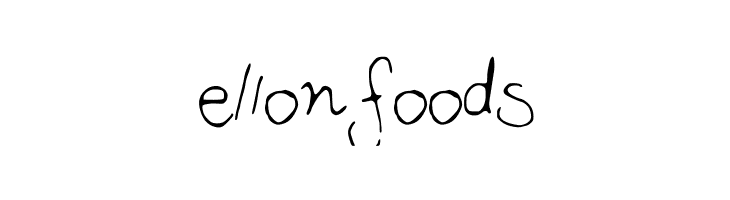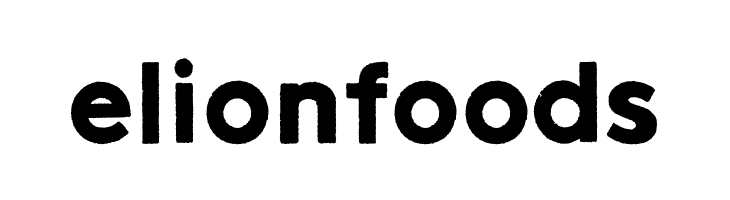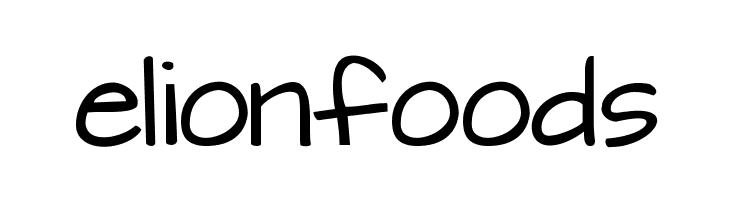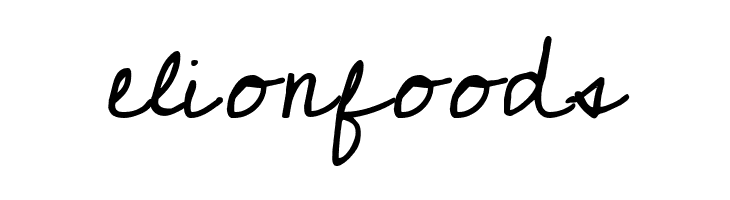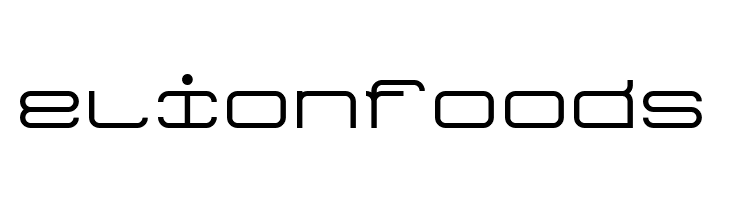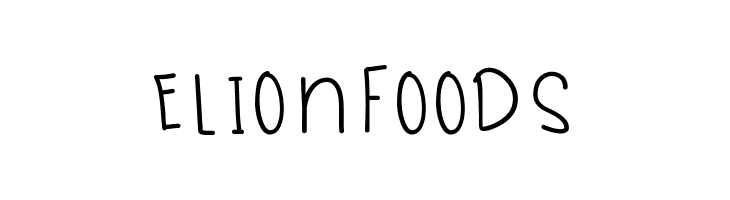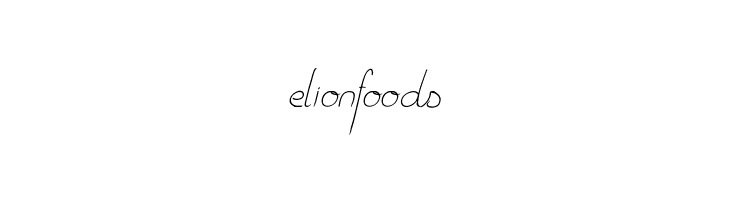
( Fonts by Kimberly Geswein - kimberlygeswein.com )
A bold, playful handwritten font with rounded, energetic letterforms.
( Fonts by www.kimberlygeswein.com - Kimberly Geswein )
A playful, handwritten-style italic font with smooth, rounded strokes.
A playful, handwritten font with bold, irregular strokes and a casual style.
( Fonts by www.hindson.com.au )
A specialized font for harp pedal notation with clear, structured symbols.
A bold, impactful font with thick, uniform strokes for strong visual presence.
A bold, decorative font with intricate, layered designs and a modern flair.
A playful handwritten font with a casual and friendly vibe.
( Fonts by Büro Sequenz )
A bold, blocky typeface with strong, uniform characters ideal for impactful designs.
( Fonts by www.kimberlygeswein.com - Kimberly Geswein )
A playful, handwritten font with a youthful and whimsical style.
( Fonts by www.kimberlygeswein.com - Kimberly Geswein )
A lively, handwritten cursive font with fluid, energetic strokes.
( Fonts by www.kimberlygeswein.com - Kimberly Geswein )
A playful, handwritten font with smooth, rounded edges and a casual style.
( Fonts by www.kimberlygeswein.com - Kimberly Geswein )
A playful cursive font with fluid strokes and a whimsical, handwritten style.
( Fonts by www.kimberlygeswein.com - Kimberly Geswein )
A casual, handwritten font with a friendly and approachable style.
( Fonts by www.kimberlygeswein.com - Kimberly Geswein )
A whimsical and curly font with playful swirls and embellishments.
A futuristic, geometric font with rounded edges and consistent line weight.
A playful, handwritten font with a whimsical and casual style.
( Fonts by Matěj Hofman )
A bold, geometric font with a futuristic and edgy style.
( Fonts by Maelle.K - Thomas Boucherie )
A bold, decorative font with intricate, swirling designs and tight character spacing.
( Fonts by Maelle.K - Thomas Boucherie )
An ornate script font with elaborate swirls and flourishes, perfect for elegant designs.
( Fonts by Maelle.K - Thomas Boucherie )
An elegant script font with flowing, interconnected letters and a sophisticated style.
( Fonts by Maelle.K - Thomas Boucherie )
An elegant and sophisticated script font with intricate swashes and flourishes.
( Fonts by Maelle.K - Thomas Boucherie )
An intricate and decorative font with elegant loops and curves.
( Fonts by Maelle.K - Thomas Boucherie )
An ornate and decorative script font with elaborate swirls and flourishes.
( Fonts by Maelle.K - Thomas Boucherie )
An ornate and decorative font with intricate swirls and flourishes.